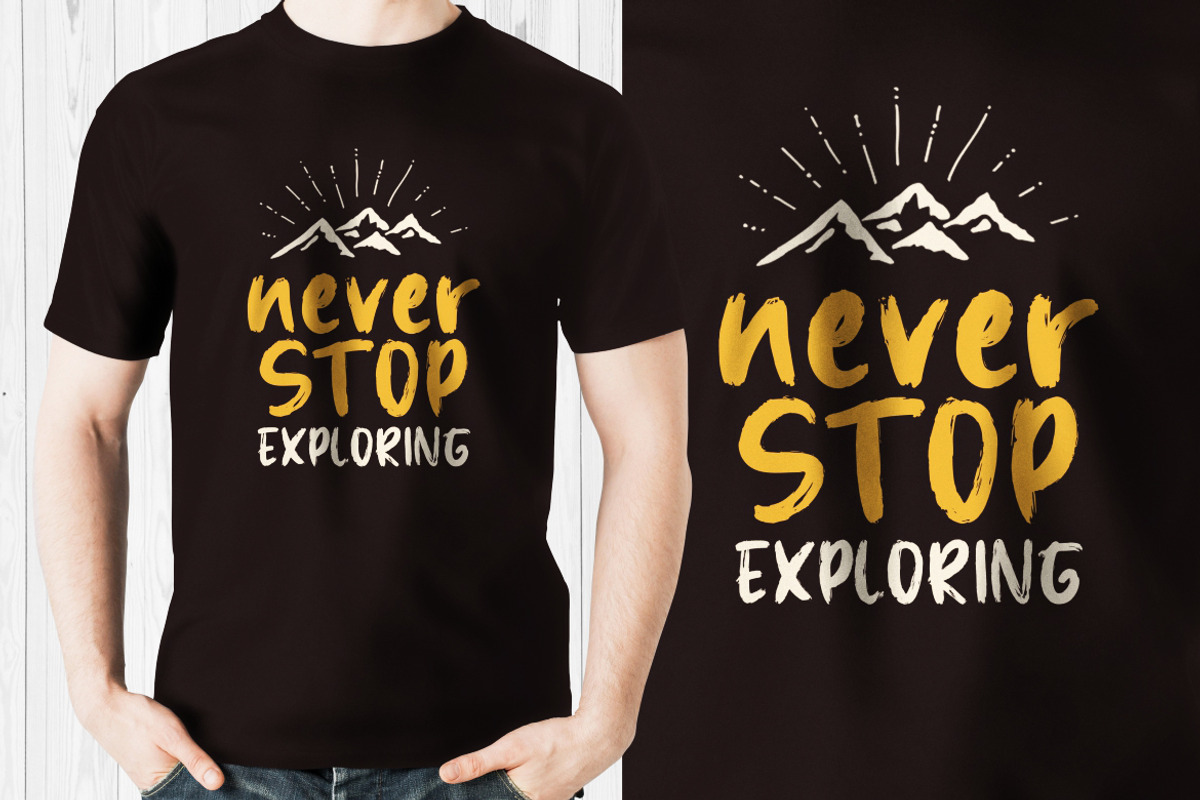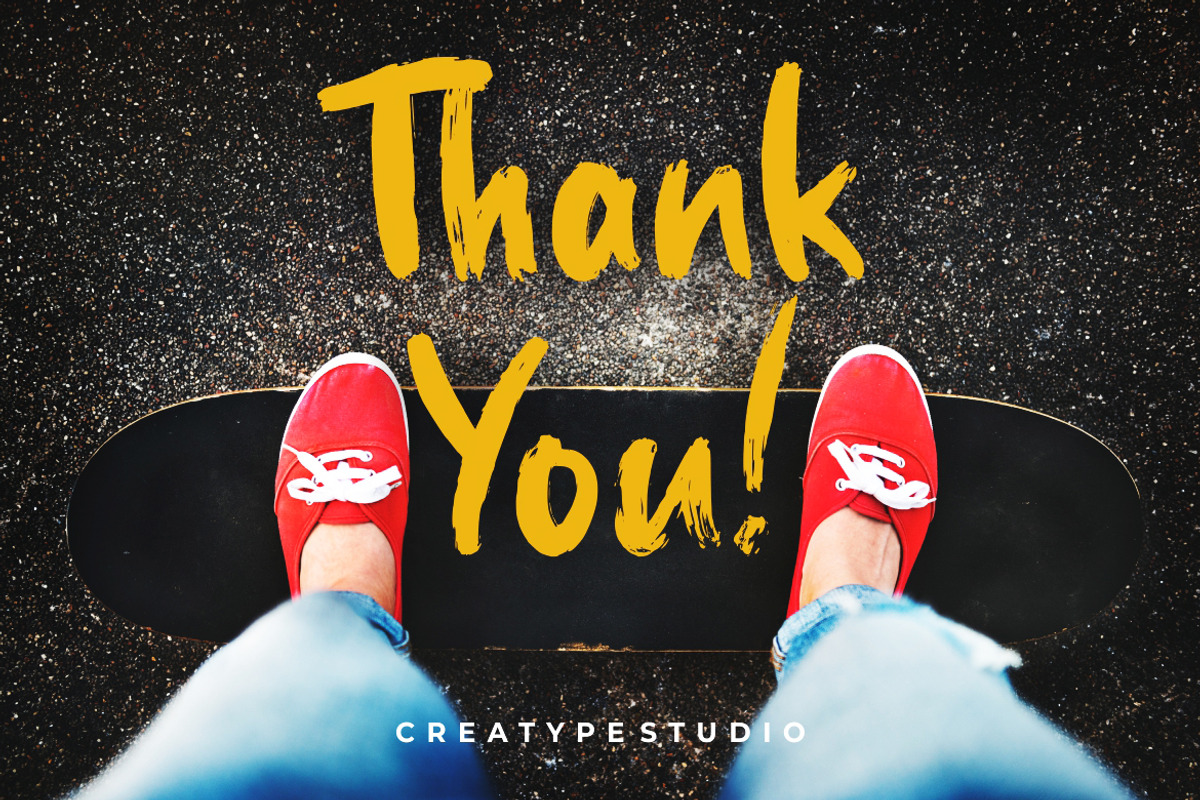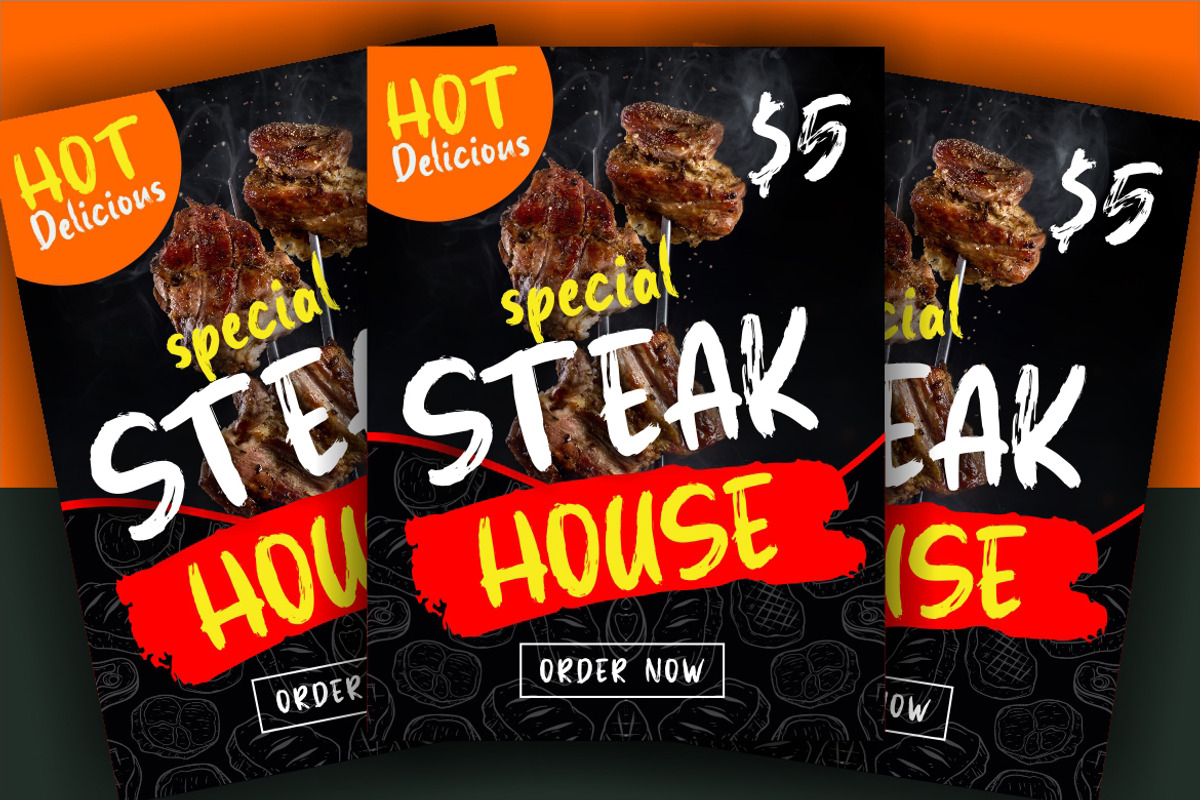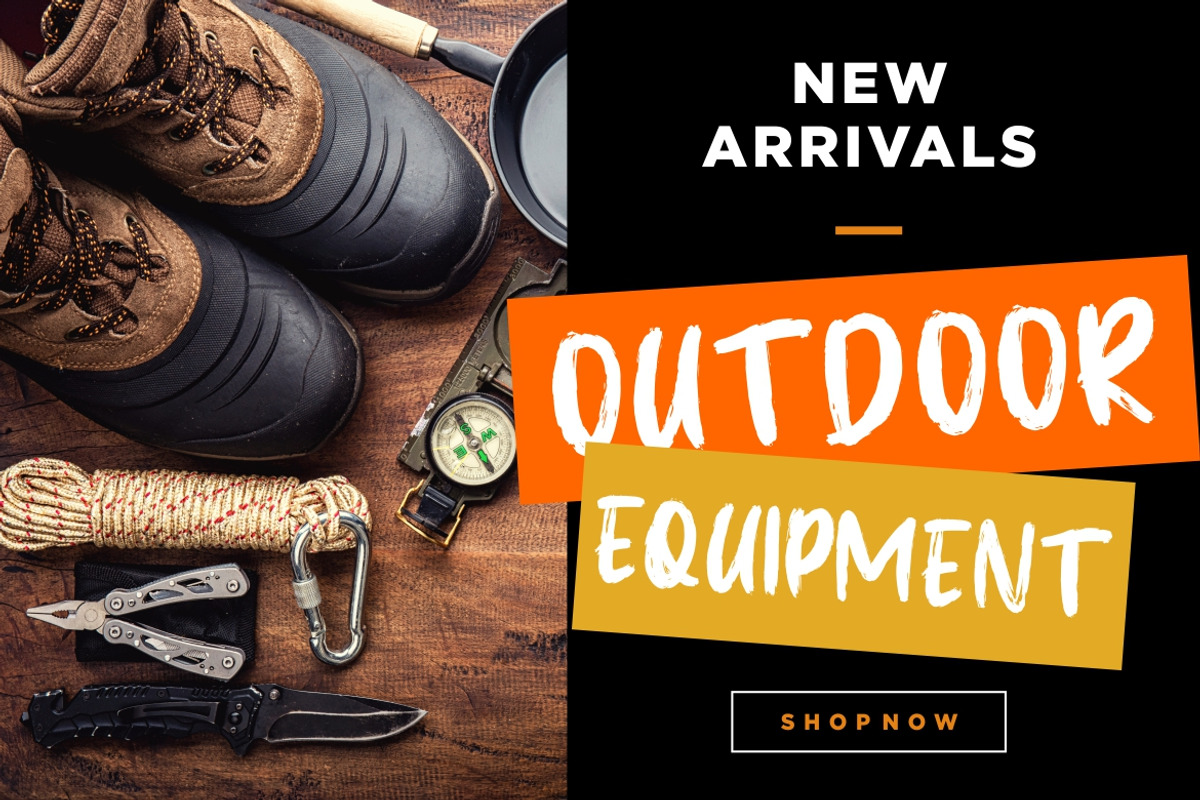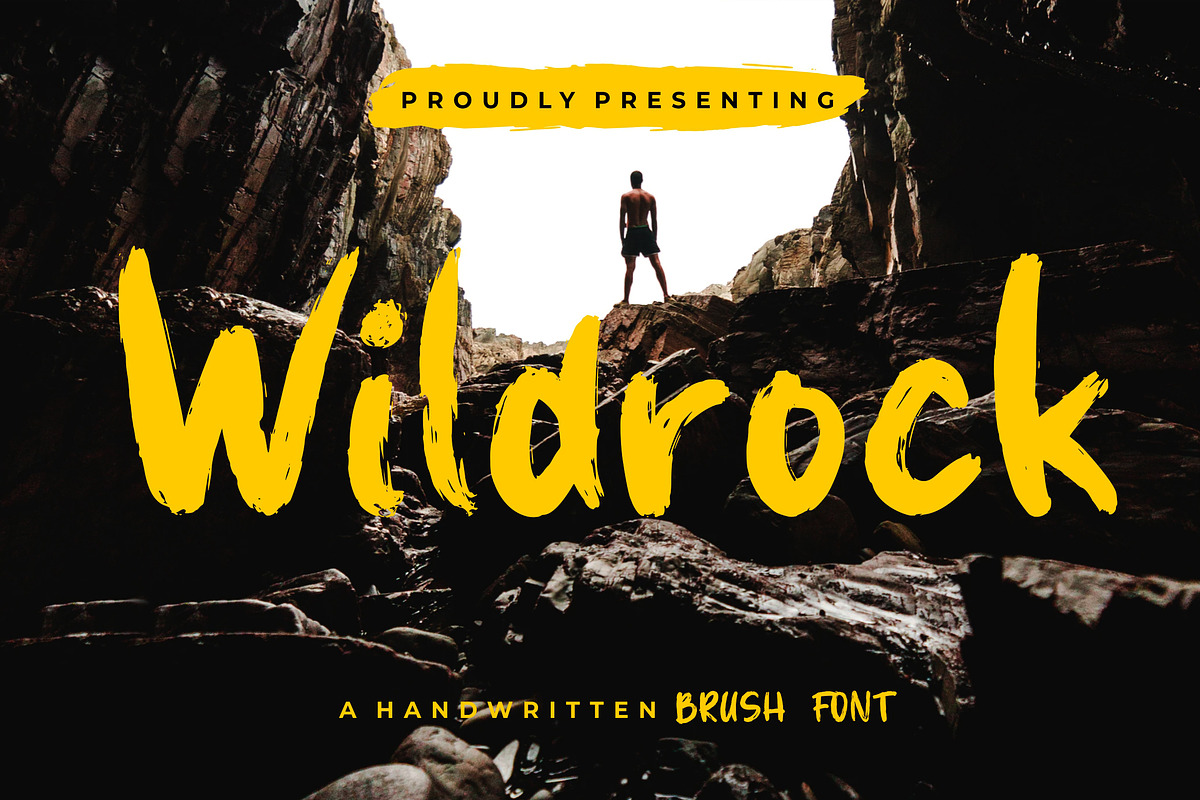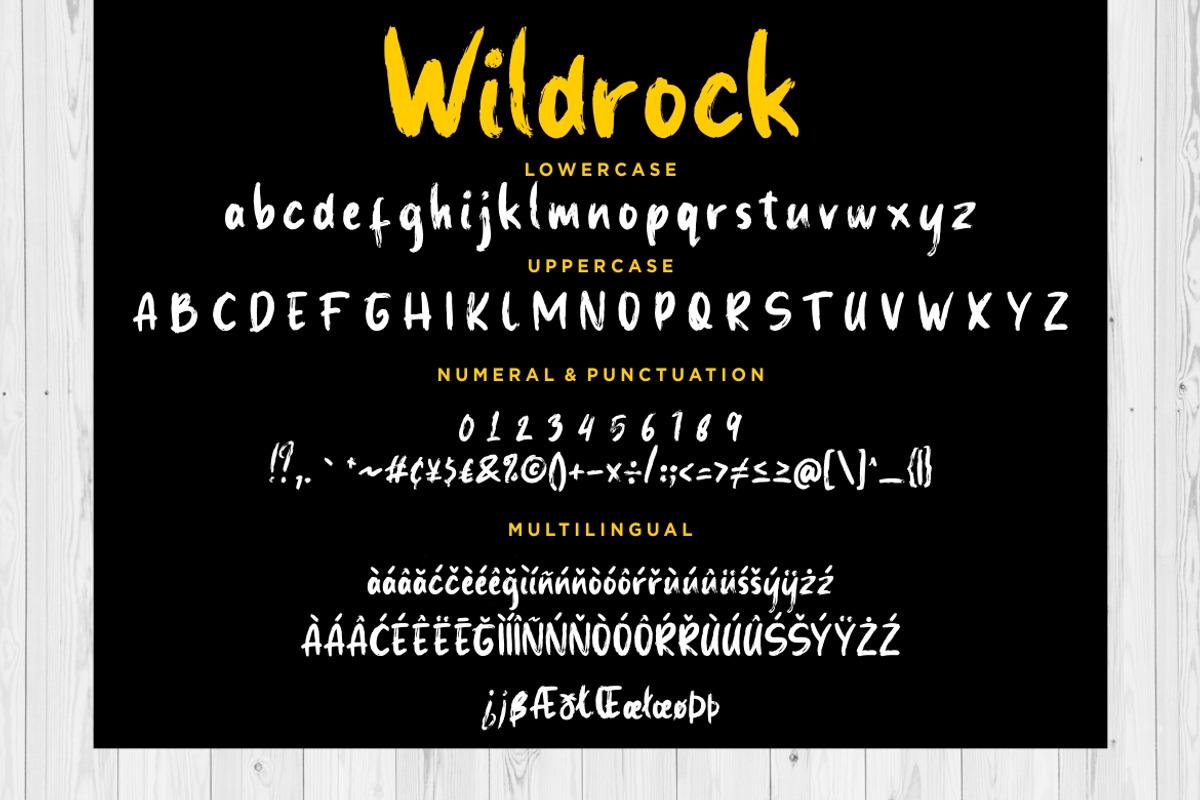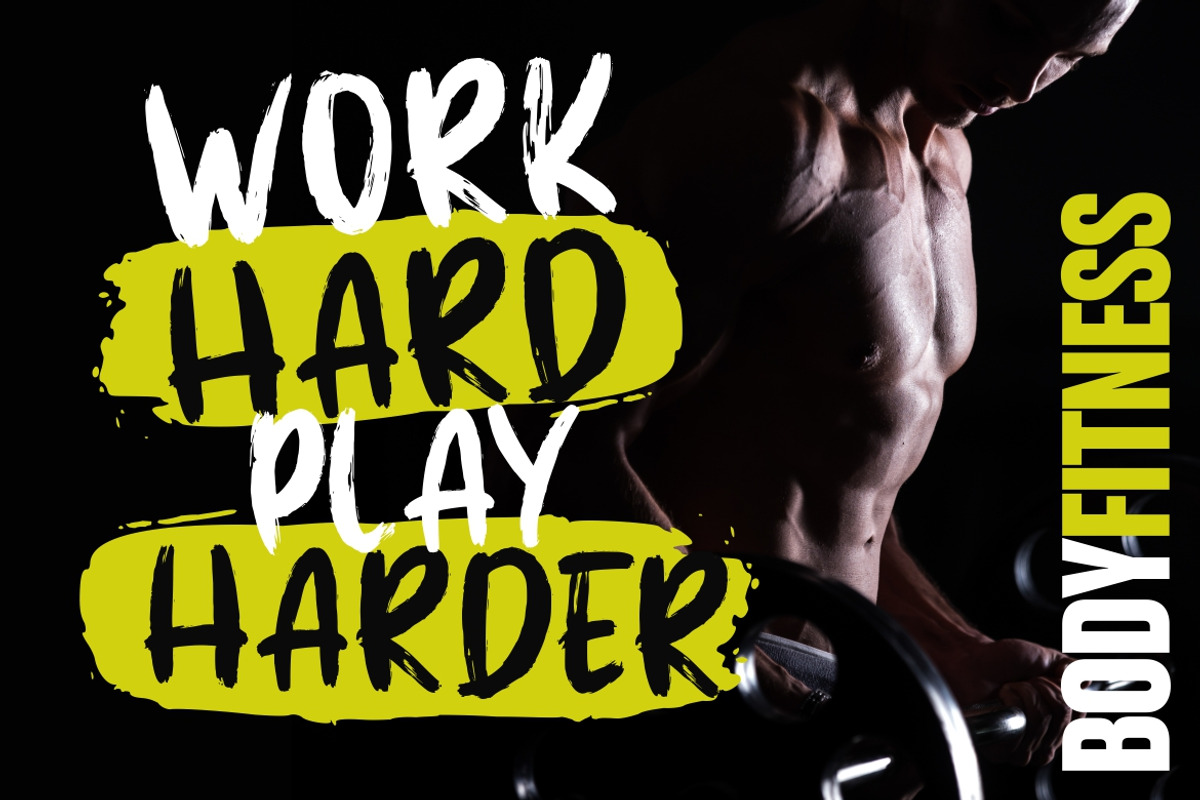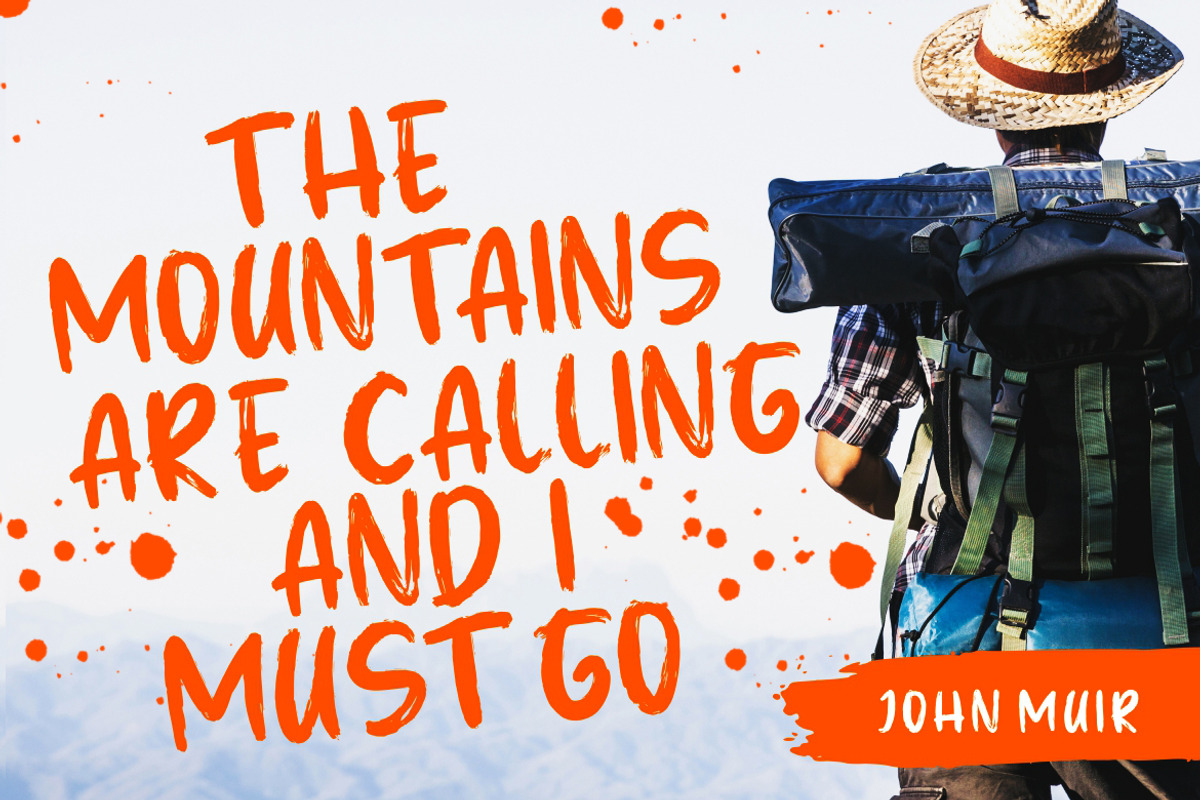
Wildrock Brush Advertisement Font
Wildrock is handwritten brush stylish script font with hand-drawn sketch that perfect for your amazing project.
Wildrock is perfect for branding projects, logo, wedding designs, social media posts, advertisements, product packaging, product designs, label, photography, watermark, invitation, stationery and any projects that need handwriting taste.
Why Wildrock Brush Advertisement Font is worth a look
Wildrock Brush Advertisement Font by Creatype Studio fits naturally into Branding, posters, packaging, typography.